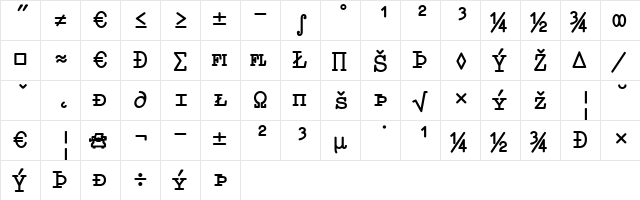
Elementa SC-Expert Bold
Design Context for Elementa SC-Expert Typeface
Elementa SC-Expert takes a measured approach to typography — its balanced proportions and neutral character make it a reliable workhorse for both digital and print work. The heavy weight commands attention and anchors typographic hierarchies.